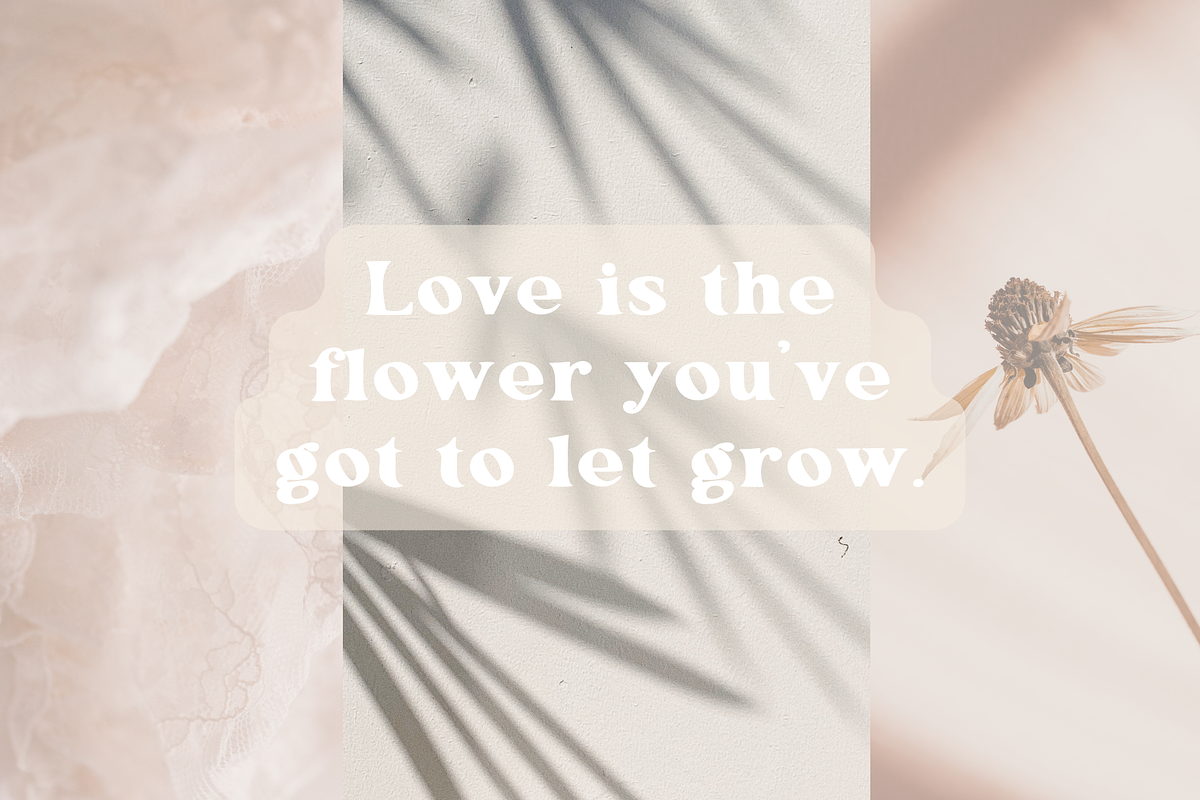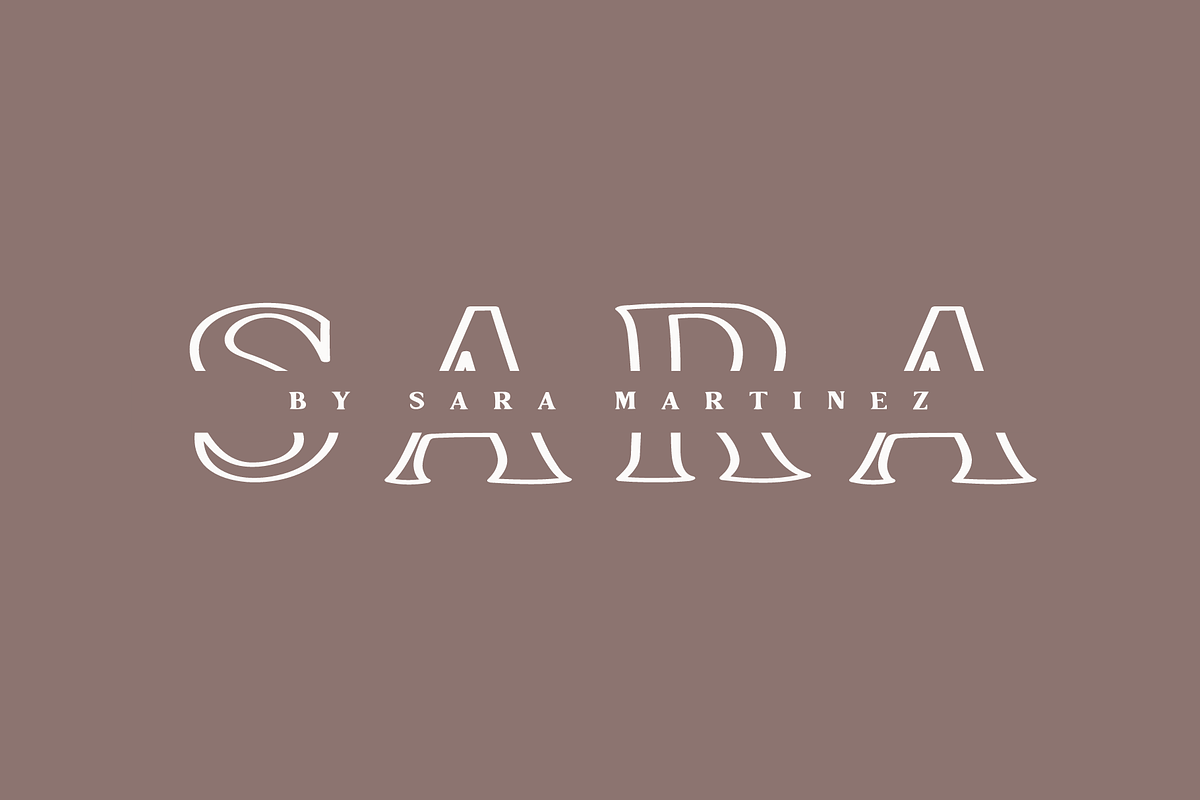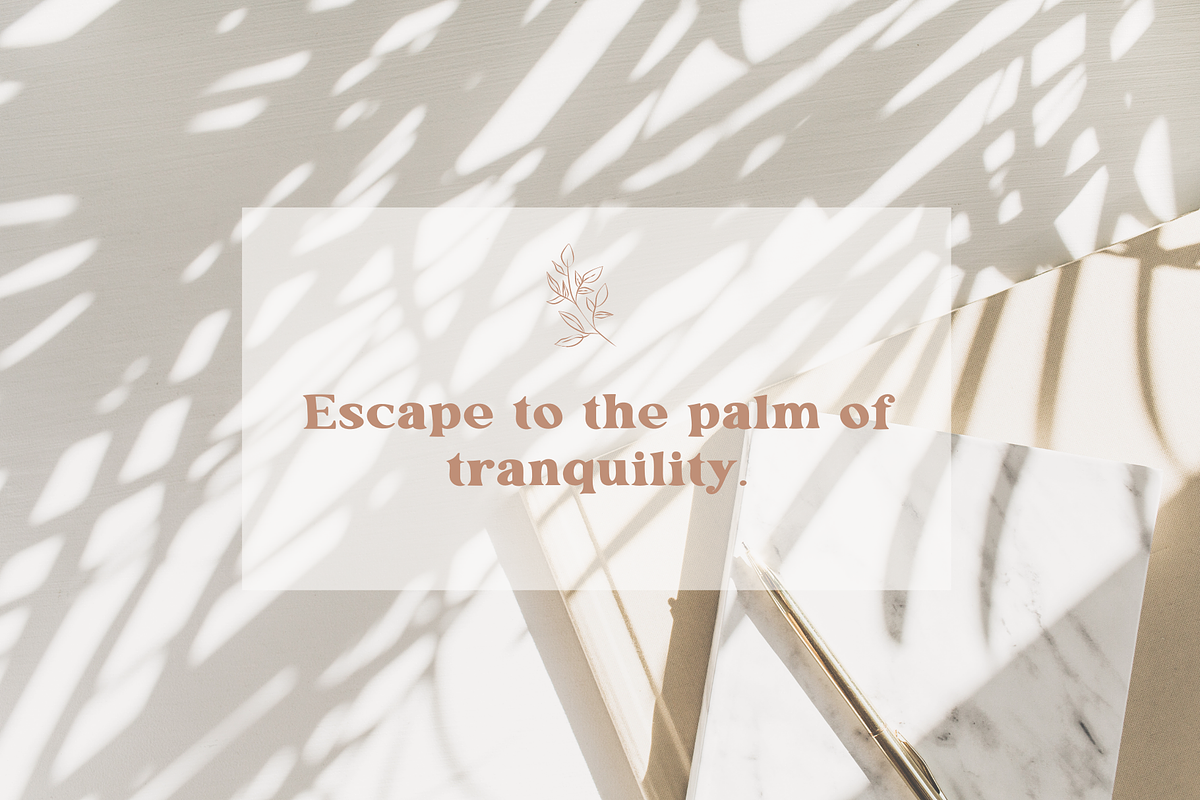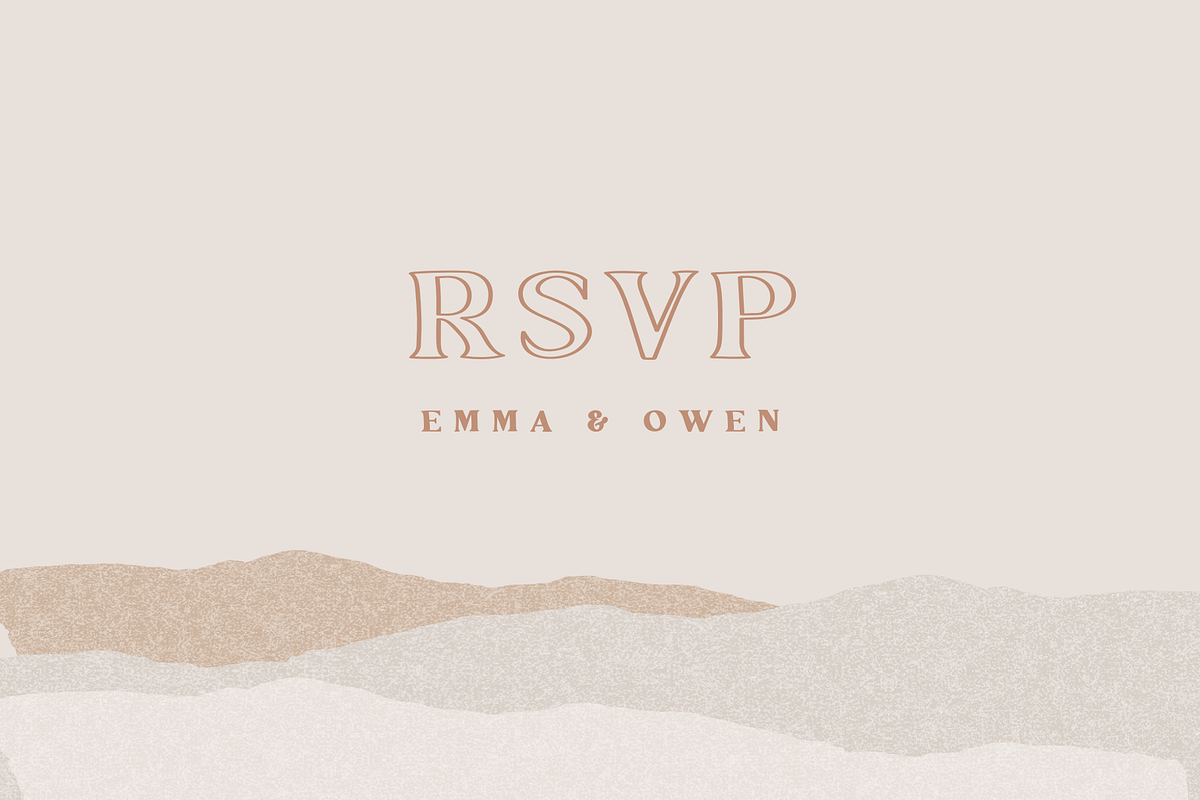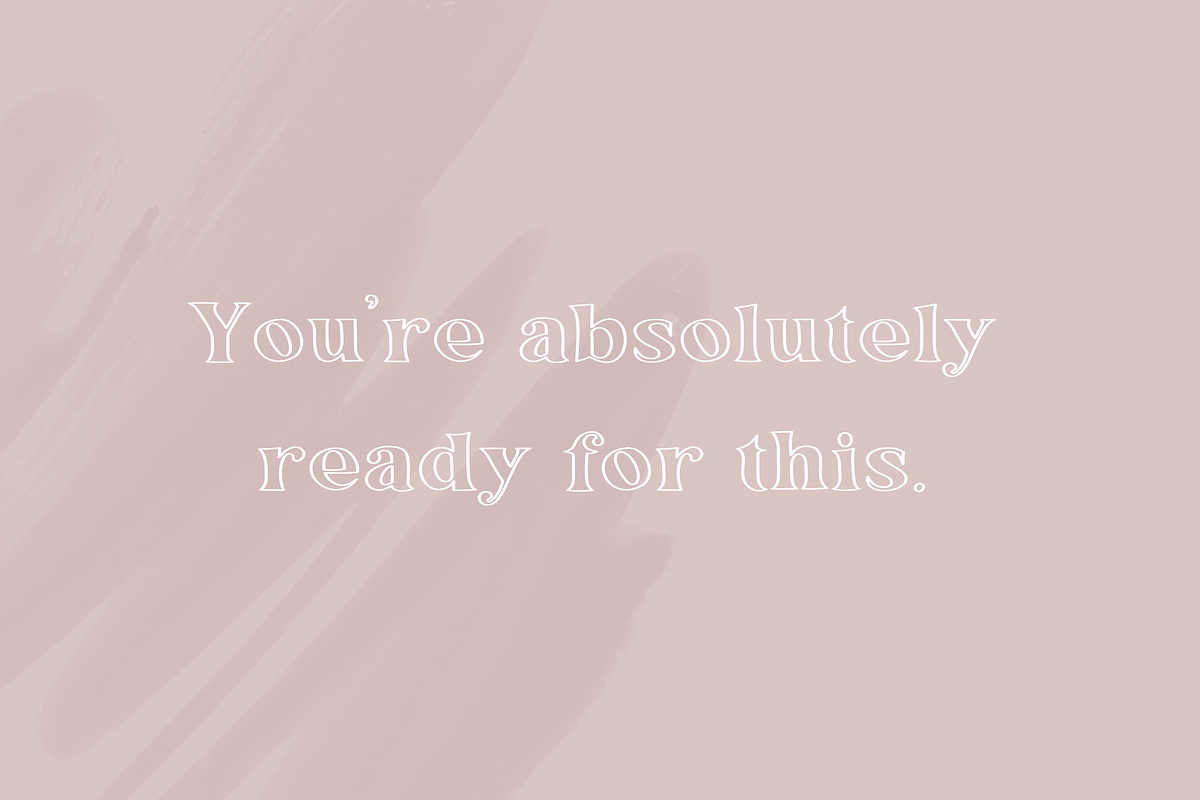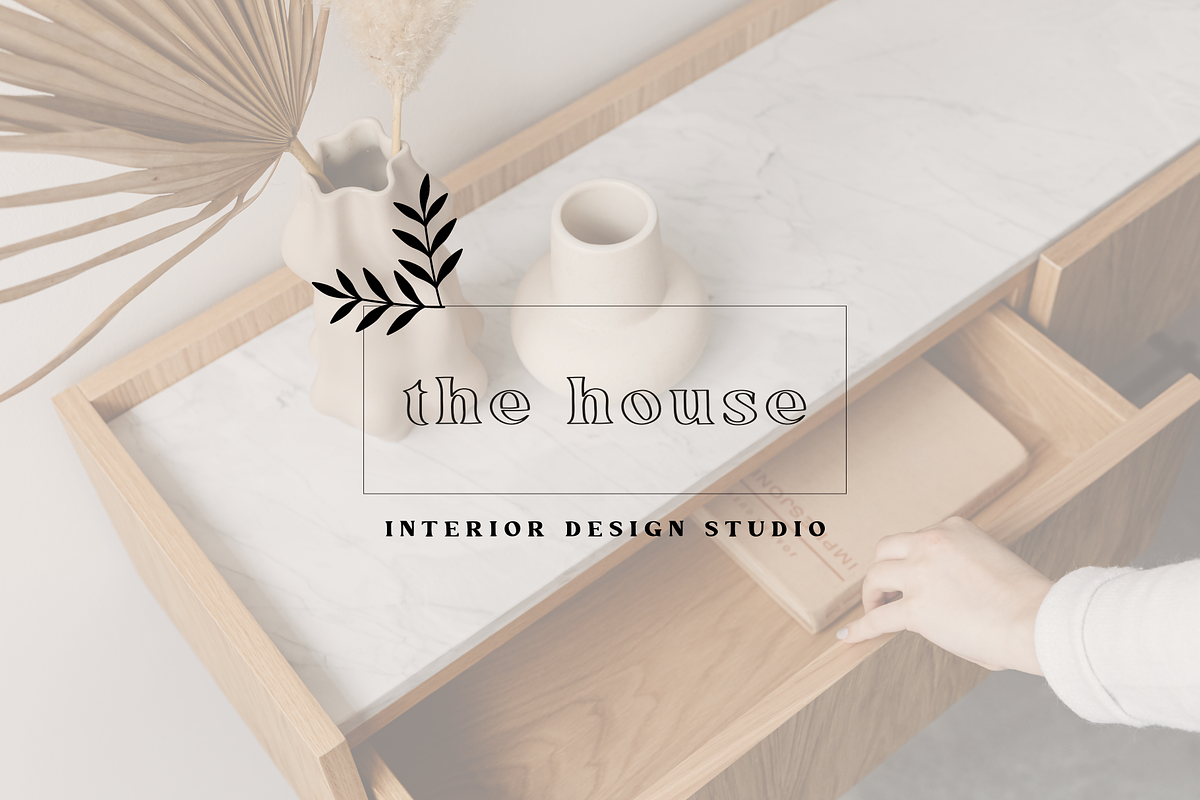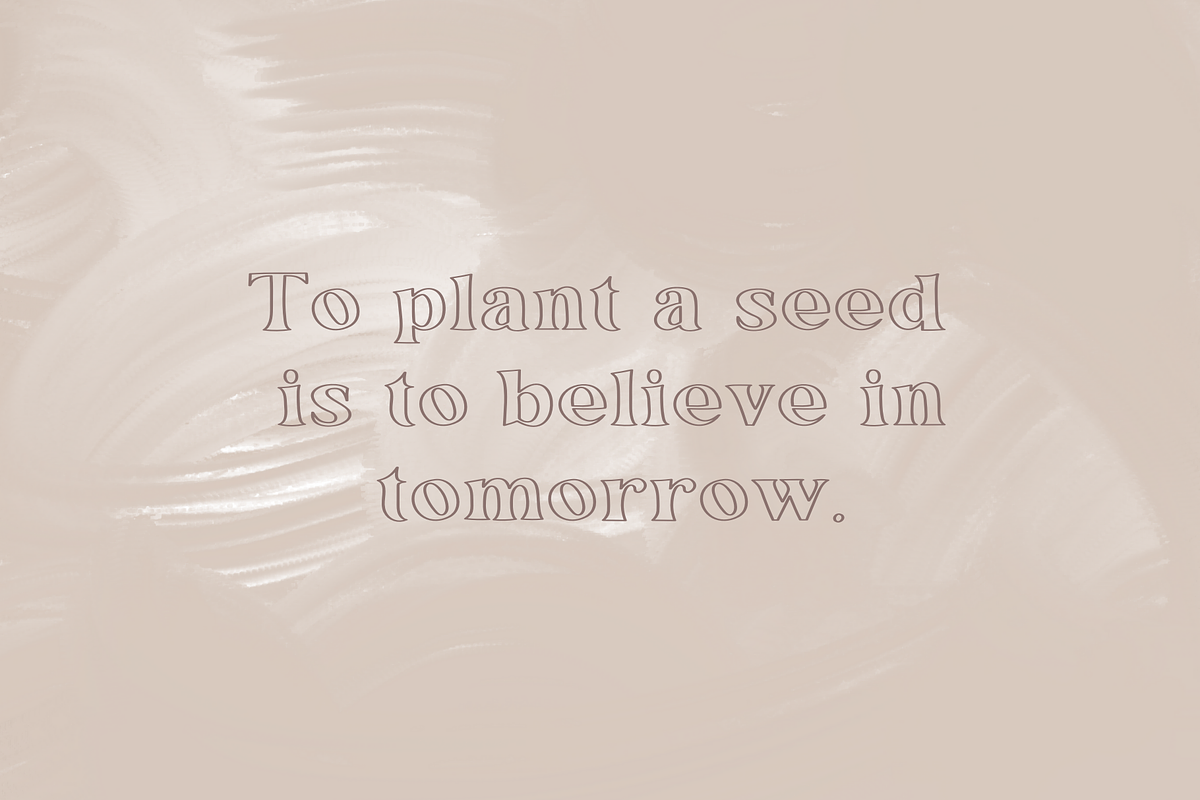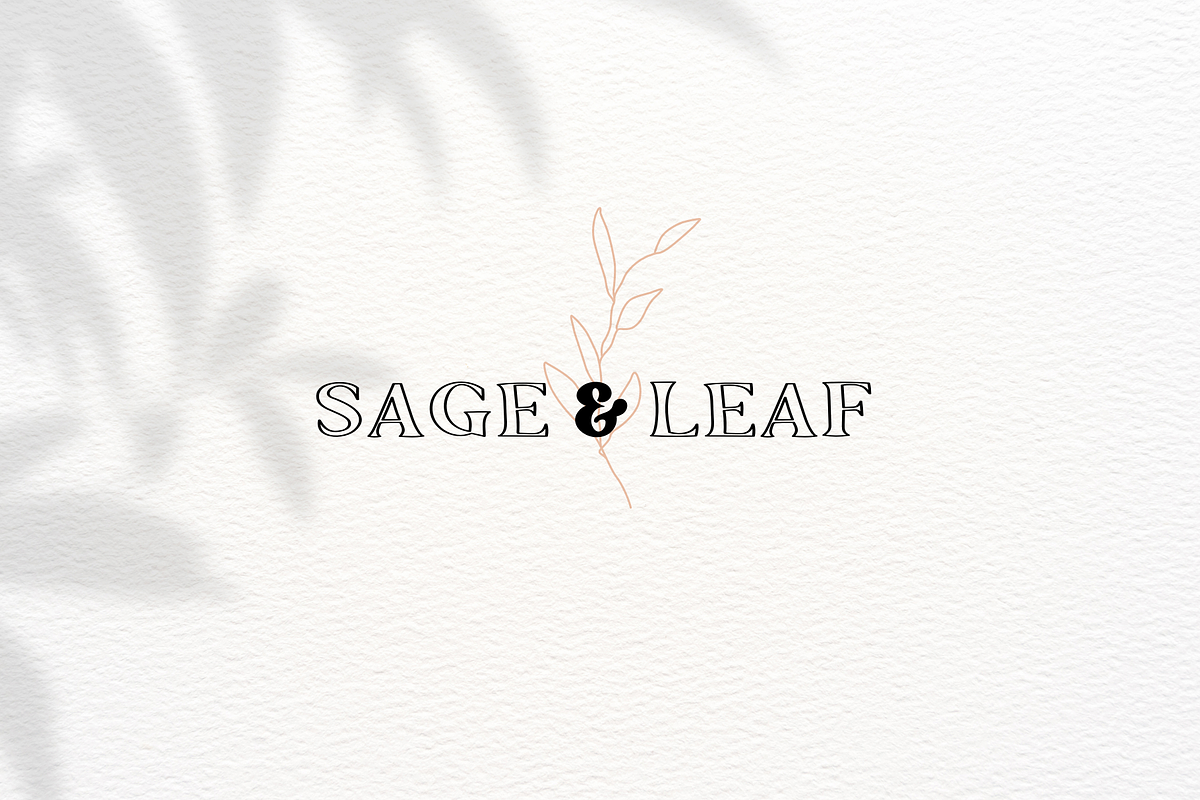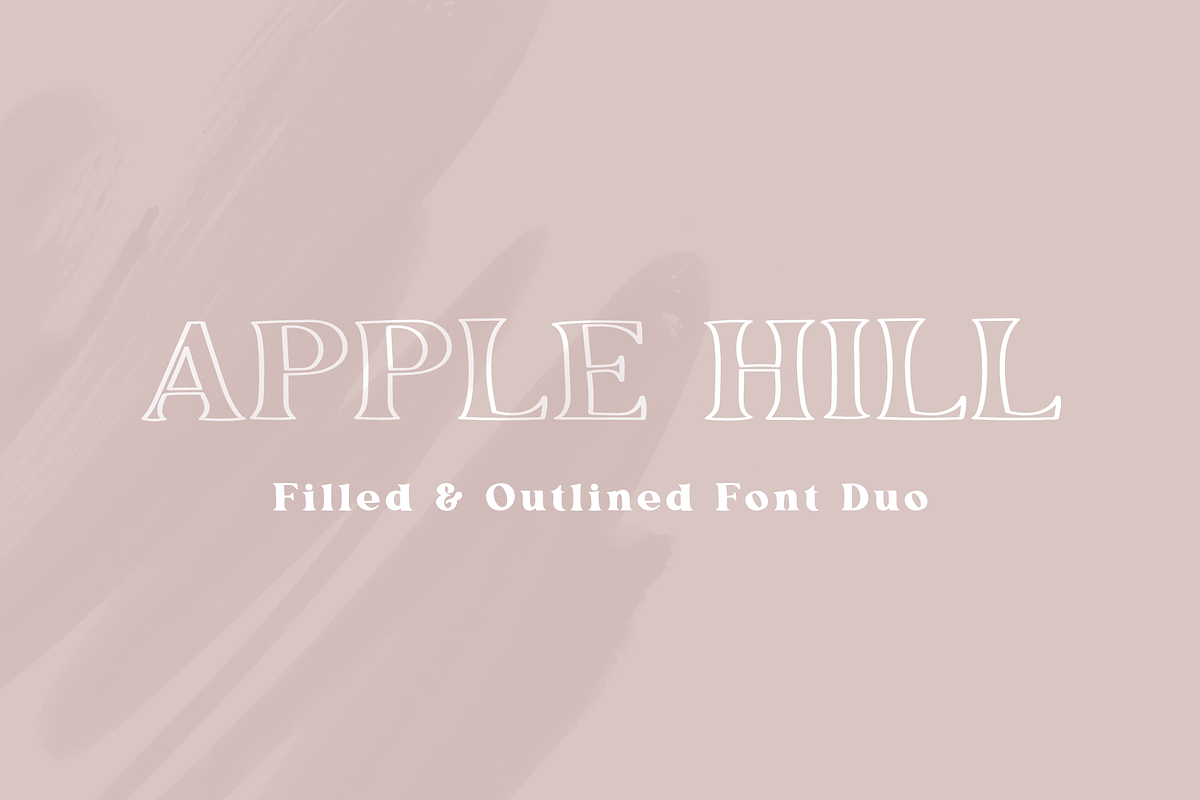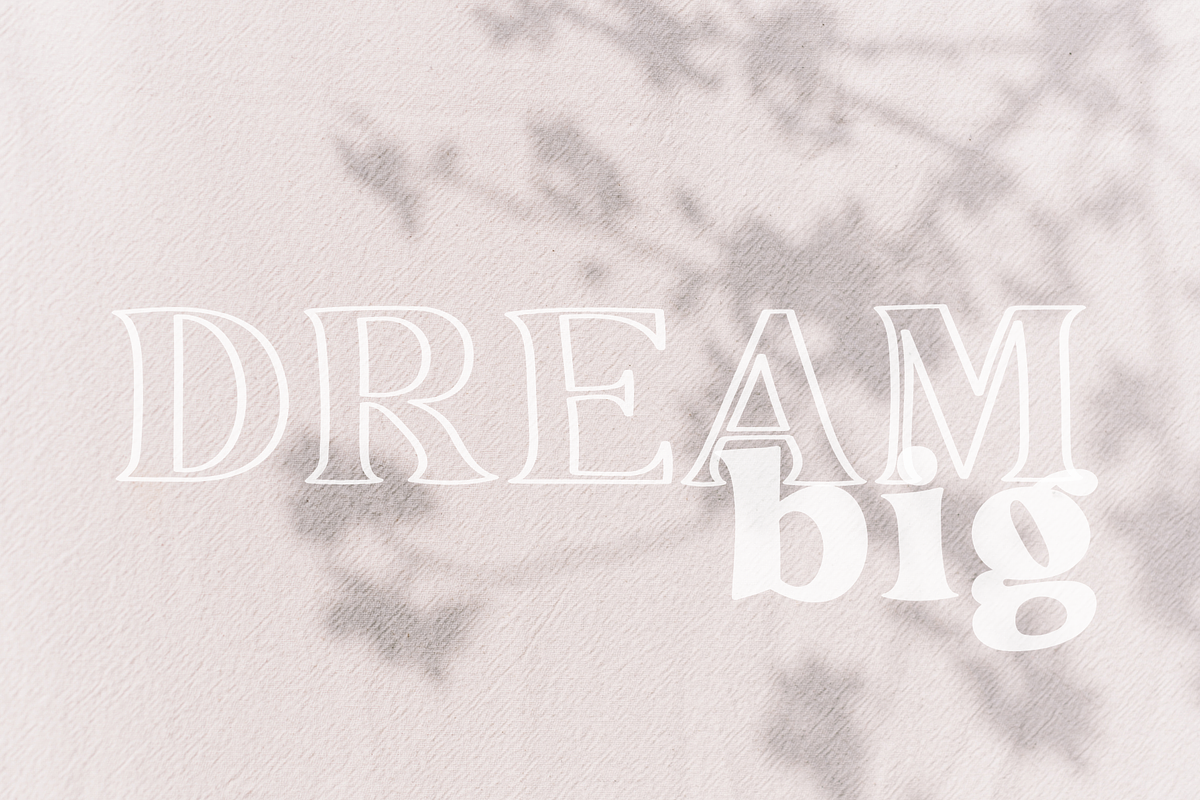
Apple Hill Duo
Apple Hill is a serif font duo including one outlined and one filled version. It's a versatile typeface with a soft, classic, handmade feel, perfect for branding and logo projects, blogs, Instagram, fashion, photography, business cards, stationery, and more...